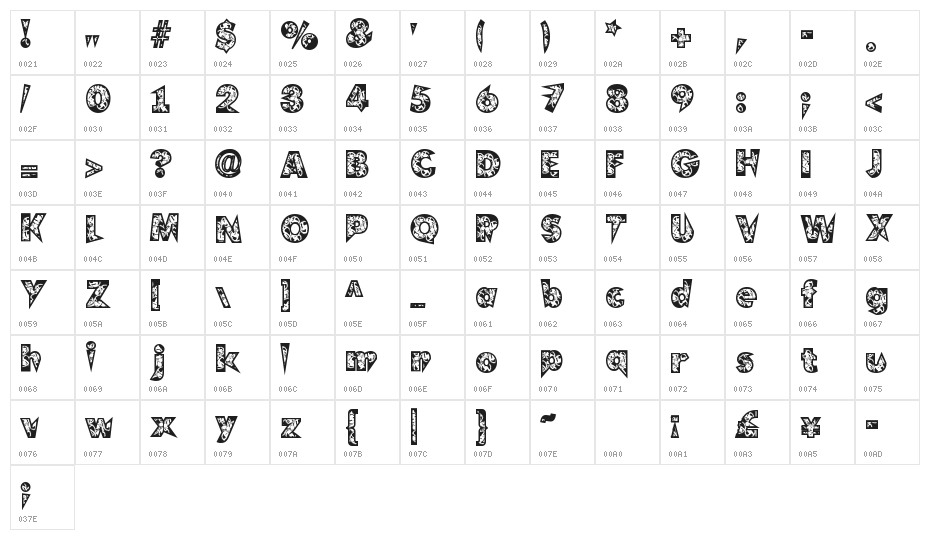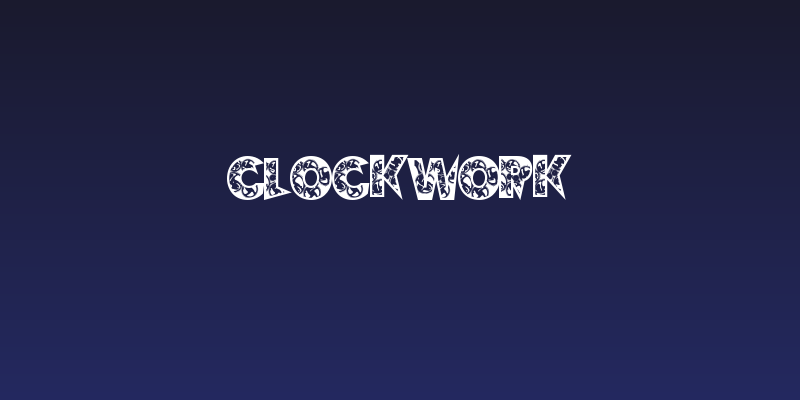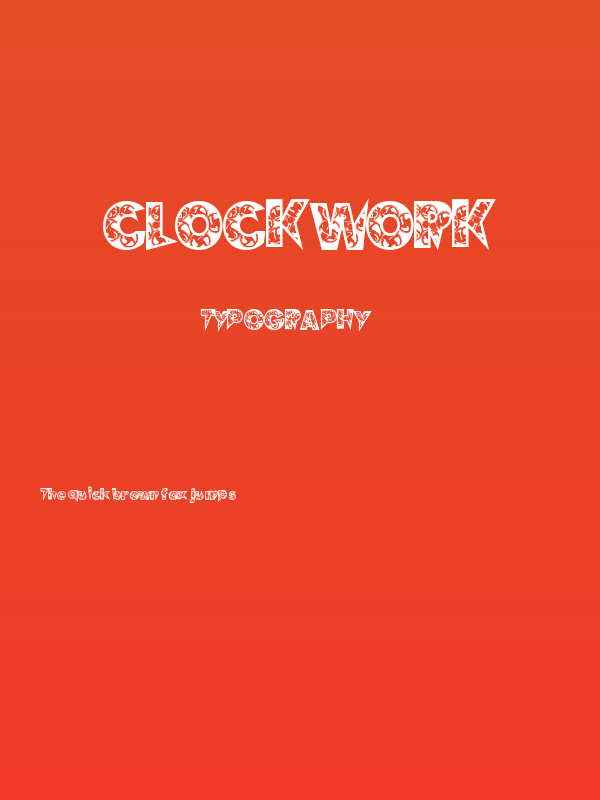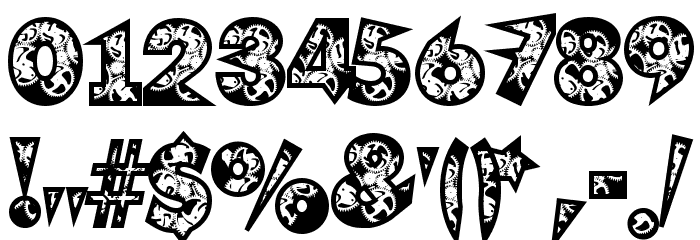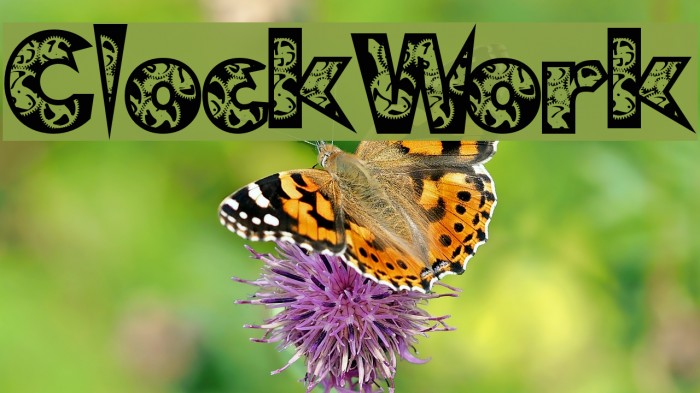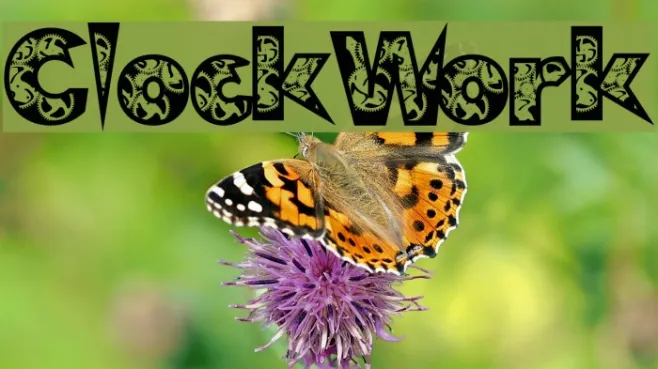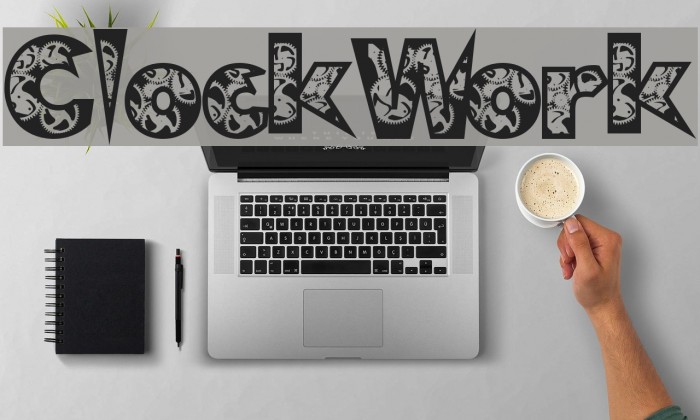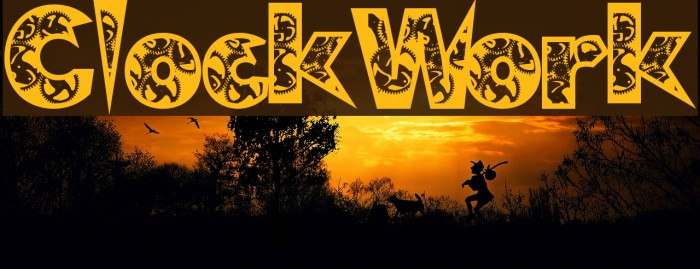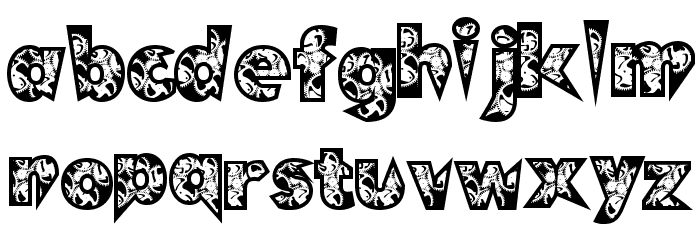
ClockWork Font
ClockWork Description
This font features a unique and intricate design that incorporates mechanical and gear-like elements within each character. The bold, decorative style is reminiscent of steampunk aesthetics, with each letter and number filled with detailed cog and gear motifs. The characters are outlined in black, providing a strong contrast against the detailed inner patterns. This font is highly stylized and visually striking, making it ideal for projects that require a bold and thematic presentation. The combination of mechanical elements and bold outlines gives it a dynamic and industrial feel.
| Proposed Projects | Ideal for steampunk-themed designs, posters, book covers, and creative branding projects. |